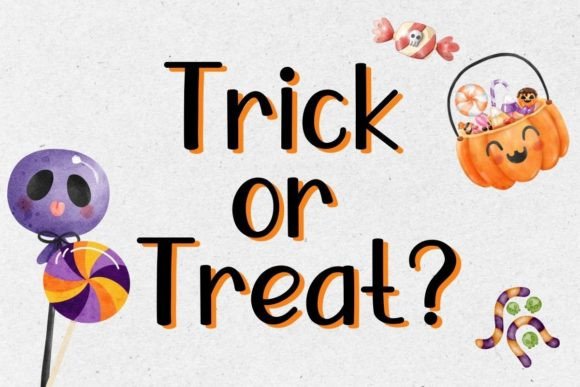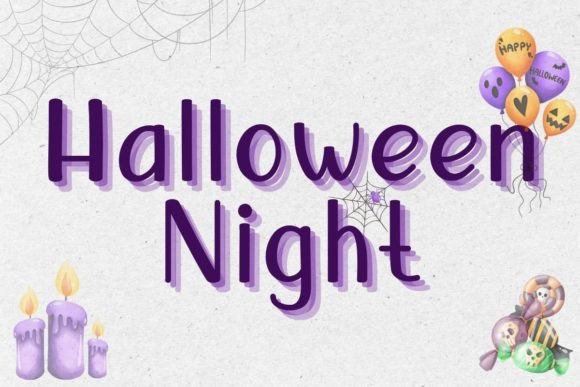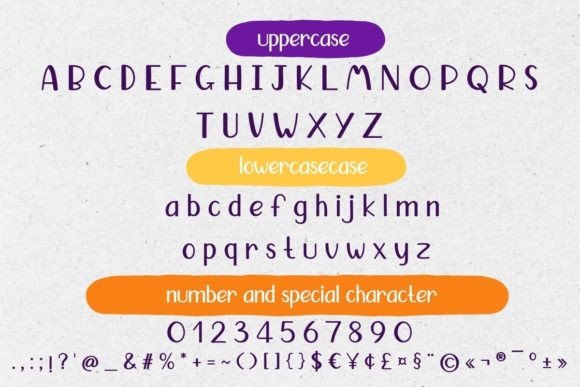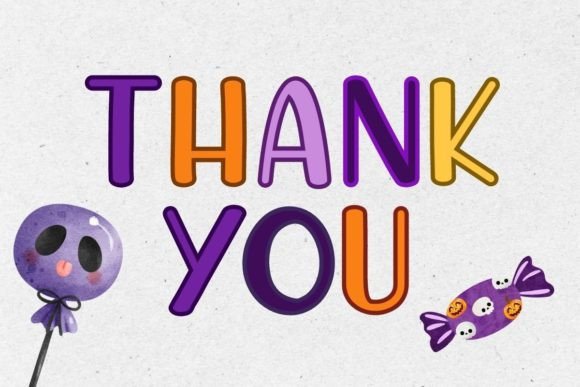
Meet the Candy Queen Font: Your New Design BFF
Hey, design champs! Get ready to meet “CANDY QUEEN” – the ultimate fusion of Display Fonts and captivating Script Fonts. This font is like your creative bestie, bringing a groovy touch to your projects with its handwritten charm and energetic style. Imagine your designs popping with the vivacious spirit of “CANDY QUEEN.” From logos to invitations, it’s like that cool friend who effortlessly stands out in a crowd. So, if you’re up for adding a splash of retro flair to your work, team up with “CANDY QUEEN” and let the creative fun begin!
A Design Moment of Truth
I recall working on a project for a client who wanted a funky, retro-themed logo. I was on a mission to find the perfect font that would capture the essence of their brand. I scoured through countless font libraries, but nothing seemed quite right. That was until I stumbled upon “CANDY QUEEN.” It was love at first sight! The font’s unique blend of playfulness and sophistication instantly resonated with my client’s vision. I knew right then and there that “CANDY QUEEN” was the perfect fit.
• ✨ Unique blend of Display and Script Fonts
• ✅ Energetic and playful vibe
• 💃 Perfect for logos, invitations, and social media graphics
• 👍 Highly legible and easy to read
⚠️ While “CANDY QUEEN” is an amazing font, it’s not suitable for body text or long-form content. Its uniqueness shines best in headlines and titles. 🤔 Additionally, some users might find the font’s energetic style a bit overpowering for certain design projects.
Exploring OpenType Features
“CANDY QUEEN” supports OpenType features, which allow you to add more personality to your text. Here are a few features you can experiment with:
• Ligatures: Combine letters to create unique and interesting effects.
• Stylistic Alternates: Switch between different font styles to add more variety to your text.
• Glyphs: Access additional characters and symbols to enhance your design.
The Backstory of Candy Queen
The story behind “CANDY QUEEN” begins with a fictional designer named Emma, who was known for her love of retro aesthetics and playful typography. Emma wanted to create a font that would capture the essence of her favorite childhood candies – colorful, fun, and full of personality. After months of experimentation, “CANDY QUEEN” was born. This font is a reflection of Emma’s creativity and passion for design.
Q: What type of projects is Candy Queen best suited for?
A: “CANDY QUEEN” is perfect for logos, invitations, social media graphics, and any project that requires a playful, retro touch.